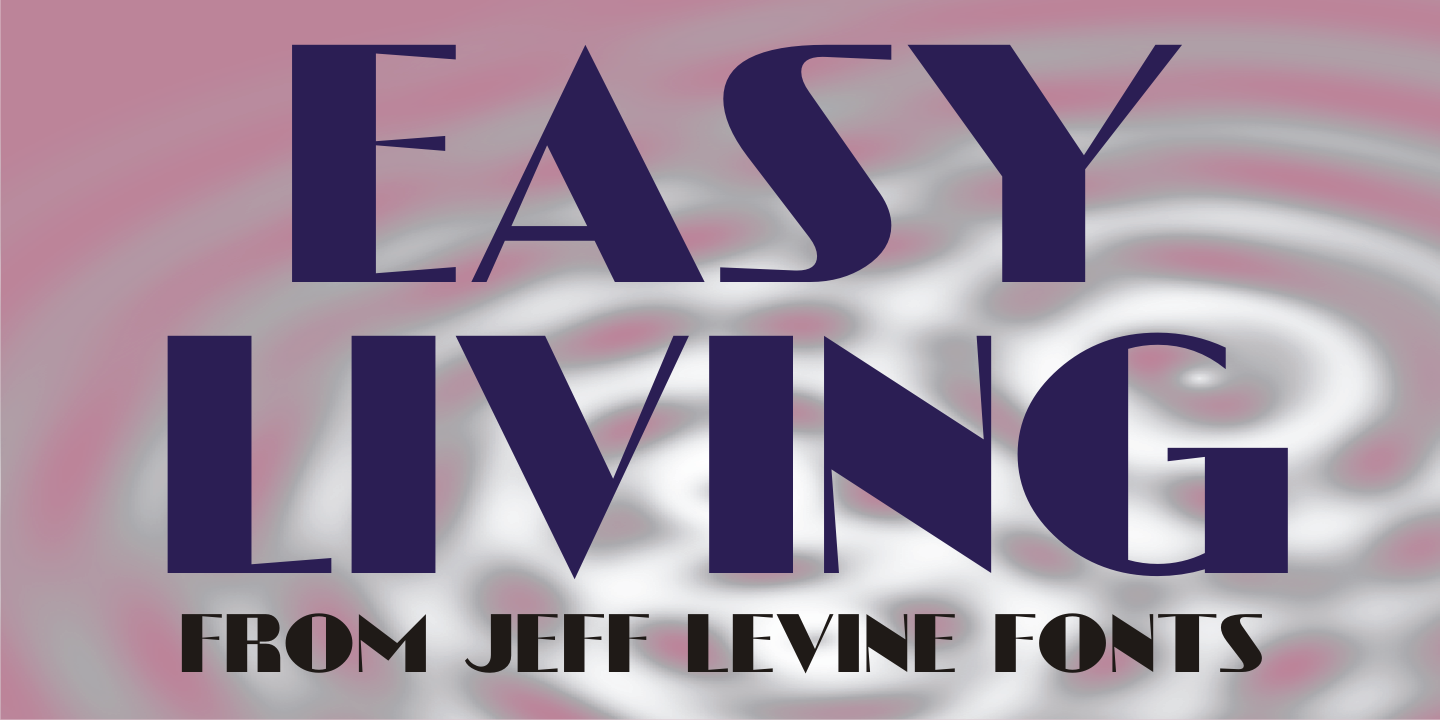
Easy Living JNL Font is perfect for relaxed lifestyle brands, comfortable home décor, leisure resort marketing, casual dining establishments, retirement community branding, stress-free wellness centers, laid-back café signage, comfortable clothing lines, and any project requiring typography with effortless comfort and unhurried lifestyle sophistication.
What makes Easy Living JNL Font exciting is its effortless comfort that captures the relaxed contentment and peaceful satisfaction of a life lived without unnecessary stress or complication with letterforms that seem to breathe with the gentle rhythm of comfortable living. This soothing typeface embodies the art of taking life at a manageable pace with flowing curves that reflect the wisdom of choosing simplicity over complexity and the deep satisfaction found in appreciating life's everyday pleasures. The font's comfortable character and lifestyle sophistication make it perfect for brands celebrating relaxation, mindfulness, and the transformative power of slowing down to enjoy life's simple blessings.
The Easy Living JNL Font family includes regular weight with complete uppercase and lowercase alphabets, numerals, punctuation marks, and comfort-inspired design elements. The font maintains consistent relaxed elegance throughout all letterforms while ensuring excellent readability for both peaceful headlines and comfortable text applications in lifestyle and wellness contexts.
Whether you're designing for wellness retreats, creating comfortable lifestyle content, or developing relaxation-focused branding with easy-living aesthetics, Easy Living JNL Font Free Download delivers unmatched comfort sophistication and peaceful charm to your projects. This delightful typeface transforms ordinary text into soothing expressions of contentment that celebrate the art of comfortable living and the wisdom of choosing peace over pressure. The font's relaxed character makes it ideal for wellness centers, lifestyle brands, and comfort-focused businesses. Download this exceptional font today and bring the peaceful elegance of easy living to your design projects with authentic comfort sophistication and stress-free lifestyle charm.